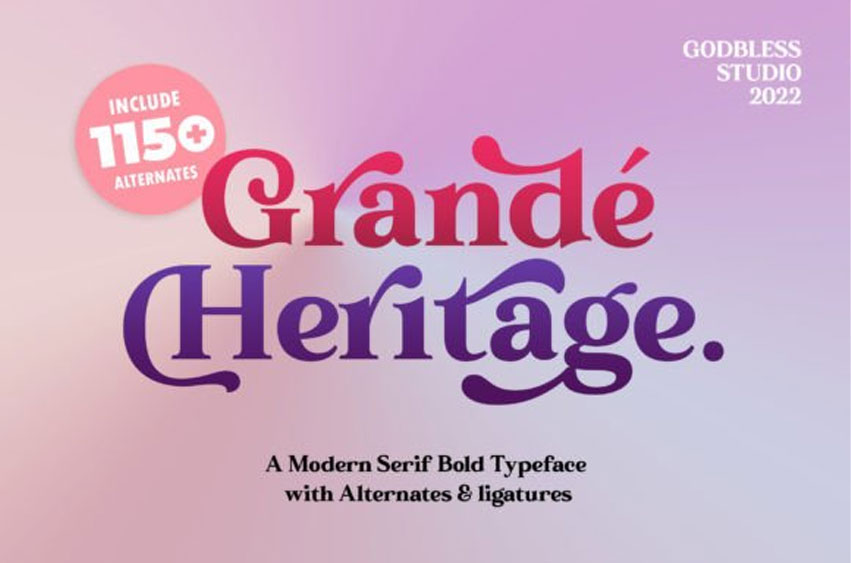
Grande Heritage Font is a sophisticated, charming serif font with a fashionable touch. Specially designed for luxury, elegant, feminine projects, this font is perfectly suitable for creating modern, chic designs.